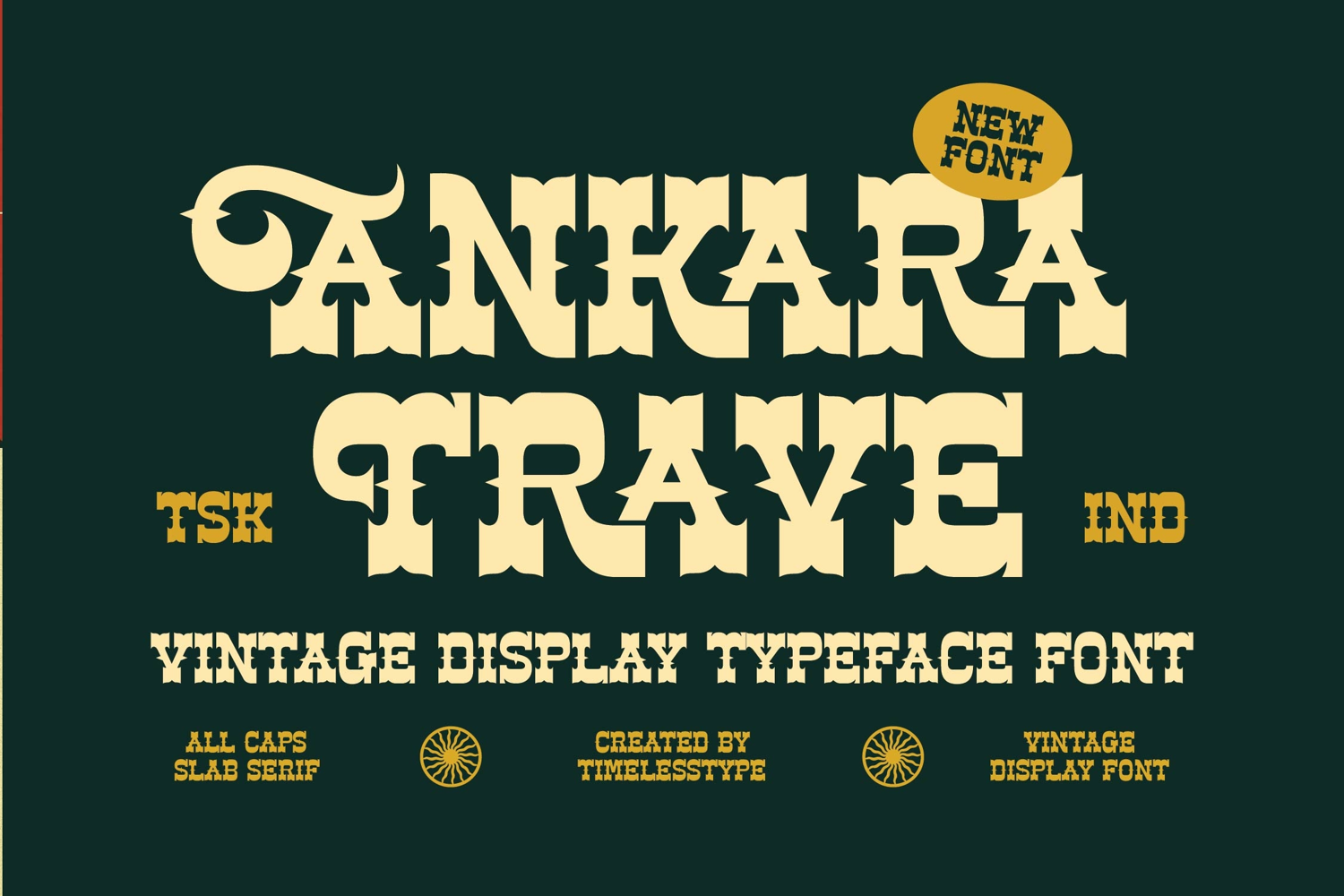
Ankara Trave - Vintage Display Typeface Font
Ankara Trave
Ankara Trave Italic
Ankara Trave - Vintage Display Typeface Font
Demand unparalleled attention with the commanding presence of Font Ankara Trave - Vintage Display Typeface Font Western. This typeface resurrects the dramatic spirit of the American frontier and classic apothecary signage, delivering instant vintage impact. Characterized by its extraordinarily thick slab serifs, ornate decorative spurs, and robust weight, this all-caps display font is engineered for maximum visibility and enduring nostalgic appeal. It provides the visual foundation needed to build a powerful, memorable brand identity rooted in authenticity and strength.
Expand your global reach without sacrificing style or historical depth. With its extensive multilingual support, Font Ankara Trave - Vintage Display Typeface Font Western adapts seamlessly across global markets, making it incredibly versatile for international projects. This comprehensive language coverage ensures that whether you are designing for a local boutique or a worldwide campaign, the distinctive aesthetic and professional quality of Font Ankara Trave - Vintage Display Typeface Font Western remain consistent and highly adaptable.
Invest in timeless design authority and bring a narrative depth to your typography collection. Ideal for high-impact promotional materials, film titles, concert posters, and distinctive storefront signage, Font Ankara Trave - Vintage Display Typeface Font Western is a professional tool built for designers seeking authenticity and power. Secure this essential vintage asset today to infuse your next project with rugged elegance and guaranteed visual resonance.